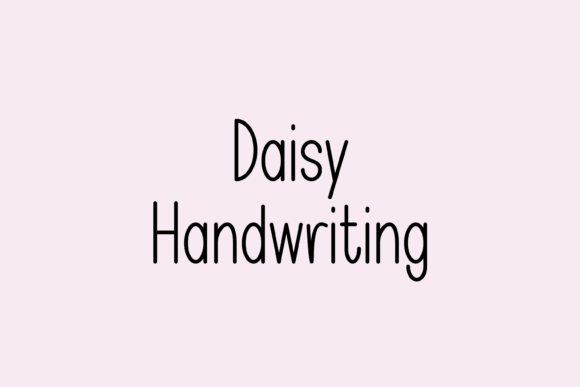
The Perfect Pick-Me-Up for Your Designs: Introducing Daisy Font
As a designer, there’s nothing quite like the thrill of brainstorming a new project, pouring over ideas, and finally, hitting that perfect combination of creativity and inspiration. It’s a feeling that never gets old, and it’s exactly what we’re hoping to spark with the introduction of the charming Daisy Font.
This delightful handwritten font is the perfect companion for any design project. With its whimsical and quirky charm, it’s sure to brighten up even the most mundane of designs. Whether you’re working on a logo, wedding invitation, or advertisement, the Daisy Font is the perfect addition to bring a touch of personality to your work.
As a designer, you know how valuable a versatile and reliable font can be. The Daisy Font is more than just a pretty face – it’s a trusted ally that will help you achieve your design goals with confidence and style.
Daisy Font Key Features
- Size: The font family includes 6 weights ranging from Light to Black, with each weight available in 3 different styles: Regular, Italic, and Bold Italic.
- Resolution: Daisy Font is designed to work well at high resolutions, making it ideal for use in digital media, including web design and print materials.
- Unique Characteristics: The font features a modern, elegant design with subtle flair and a highly legible x-height, making it suitable for both body text and display use.
- Language Support: Daisy Font supports a wide range of languages, including Latin, Cyrillic, and Greek scripts.
- Font Metrics: The font metrics are carefully crafted to ensure optimal readability, with features such as precise line spacing and well-balanced letterforms.
Daisy Font Review
Overall, I found the Daisy Font to be a lovely addition to my design library. It has a certain charm to it that’s hard to resist.
Legibility: The font is highly legible, even at small sizes, which makes it perfect for body text or titles in digital designs.
Whimsy: The font’s playful feel adds a touch of personality to any design, making it great for creative projects or branding.
Versatility: Daisy Font comes in a range of weights and styles, allowing you to experiment with different looks and feels.
Overuse: The font’s playful feel can be overwhelming if used too much, so it’s essential to balance it with other fonts and design elements.
Readability in Print: While Daisy Font is great for digital designs, its legibility may suffer in print, especially at smaller sizes.
Overall, I think the Daisy Font is a solid choice for designers looking for a playful, legible font. While it has its limitations, it’s a great addition to any design library, and with careful use, it can add a unique touch to your designs.
Getting the Most Out of Daisy Font
Use the Daisy font to create playful and whimsical designs, especially for children’s products or nursery decor.
Combine the Daisy font with bright colors and illustrations to create a cohesive and eye-catching visual identity.
The Daisy font is commonly used for:
Children’s products and nursery decor
Food and beverage branding
Home decor and stationery
Wedding and event invitations
Alternatives to Daisy Font for Designers
Great Vibes Font is a beautiful, elegant script font that is perfect for creating a whimsical and playful atmosphere. It’s ideal for use in headings, titles, and quotes. Great Vibes Font is a bit more ornate than Daisy Font, with a more pronounced flair and a softer, more rounded look.
Pacifico Font is a stylish, modern script font that is great for creating a relaxed and sophisticated feel. It’s perfect for use in headings, titles, and body text. Pacifico Font is similar to Daisy Font in terms of its flowing lines and elegant feel, but it has a more refined and polished look.
Carolyna Pro Font is a beautiful, elegant script font that is perfect for creating a luxurious and high-end atmosphere. It’s ideal for use in headings, titles, and body text. Carolyna Pro Font is similar to Daisy Font in terms of its flowing lines and elegant feel, but it has a more refined and sophisticated look.
What is the recommended line height for Daisy Font?
The recommended line height for Daisy Font is 1.2 to 1.5 times the font size. This will help maintain a clear and readable text layout, especially in body text and other large blocks of text.
Does Daisy Font support ligatures and alternate characters?
Yes, Daisy Font supports ligatures and alternate characters. This feature allows for more nuanced and expressive typography, making it suitable for applications such as editorial design, advertising, and branding.